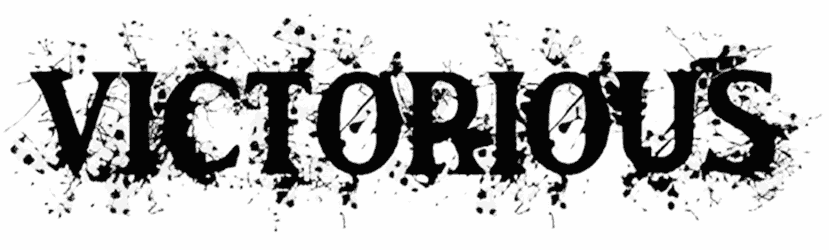
Victorious Font
Would you like to design your scary project with dread and at the same time a classic face? Take a look at Victorious with its decorated serif letters. This destroyed font has a smudgy and weird mood, but it doesn’t support lowercase and most of the punctuation. Set it on various designs, namely headlines, flyers, foregrounds, or the like, and lend them a mystery vibe.